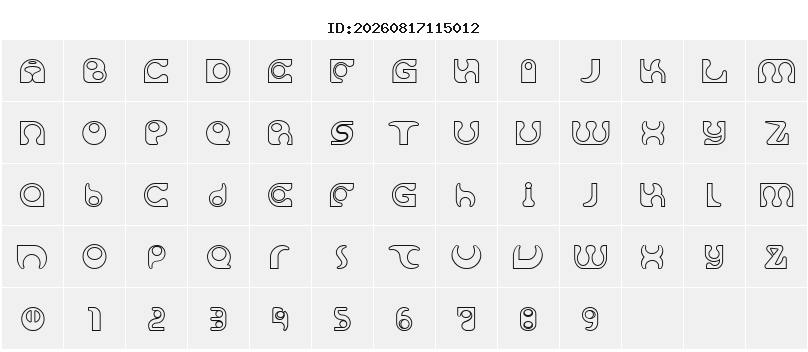
Solange seethrough Preview
• Font Name: Solange seethrough
• Full Font Name: Solange seethrough
• Designer: Owen Turley
About Solange seethrough.ttf
Solange seethrough.ttf is a modern, elegant sans-serif font designed for ultimate readability and visual harmony. Perfect for branding, headlines, web design, and print materials.